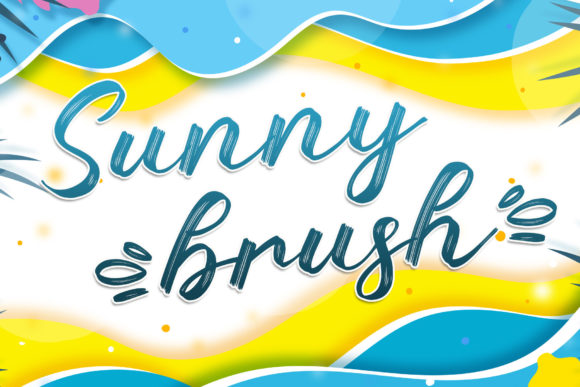
Introducing Sunny Brush Font - The Ultimate Tattoo Quote Font!
Unleash your creativity and make a statement with Sunny Brush Font, the captivating script font designed to turn your tattoo quotes into breathtaking works of art. This font is not just a collection of letters; it's a gateway to expressing your individuality, passion, and stories through the art of typography.
With Sunny Brush, you can transform ordinary words into captivating expressions that speak directly to the heart. Its beautifully crafted brushstrokes, reminiscent of a skilled artist's hand, evoke a sense of authenticity and genuineness that resonates with your audience.
Step into a world of possibilities where your tattoo quotes come alive with Sunny Brush's vibrant personality. Explore endless combinations of swashes, ligatures, and alternative characters to create designs that are uniquely yours. The PUA encoding ensures effortless access to the full range of glyphs, granting you the freedom to experiment and bring your creative visions to life.
Sunny Brush isn't just a font; it's an experience. Its natural and unique style harmoniously blends with a multitude of design concepts, making it the perfect choice for logos, branding, social media graphics, posters, and countless other projects.
Elevate your designs to the next level and make a lasting impression with Sunny Brush Font. Its distinctive character and captivating charm will leave your audience spellbound, whether showcasing your own tattoo quotes or creating awe-inspiring designs for clients.
Discover the boundless potential within Sunny Brush Font today and embark on a journey of creativity and self-expression. Let your tattoo quotes radiate with authenticity and captivate the hearts of all who behold them.